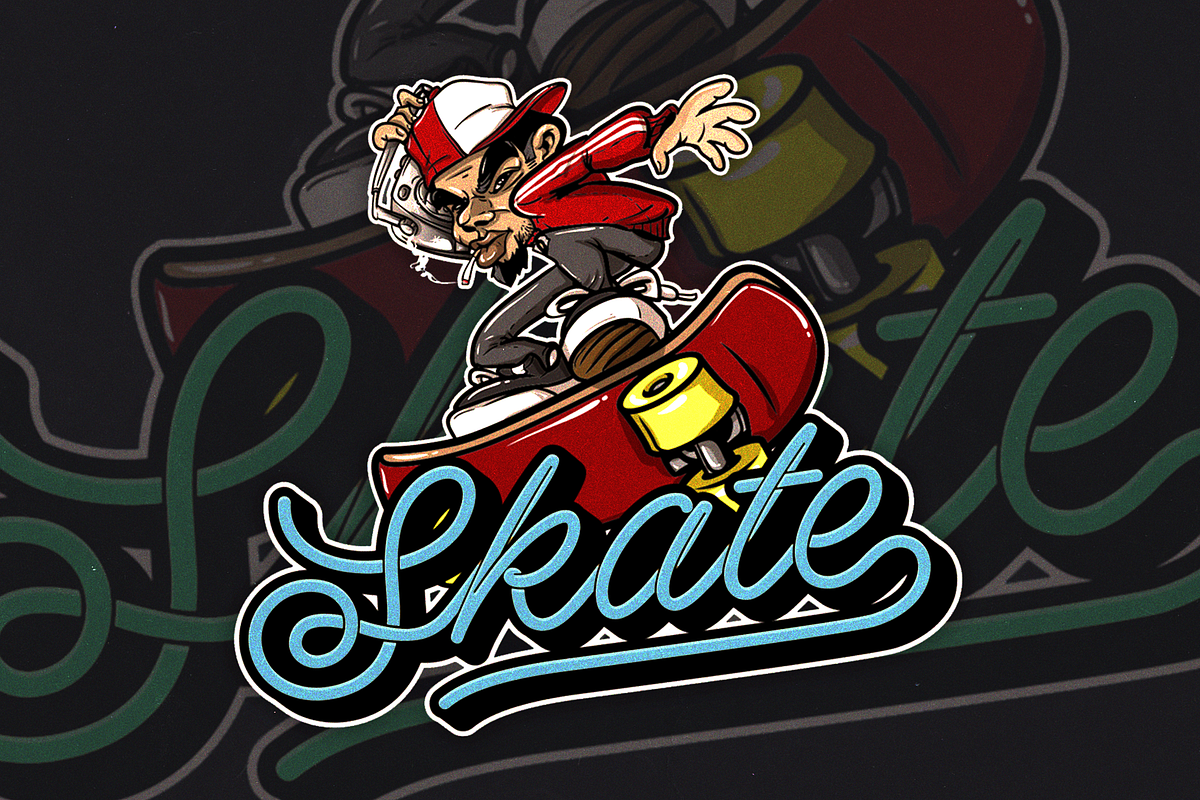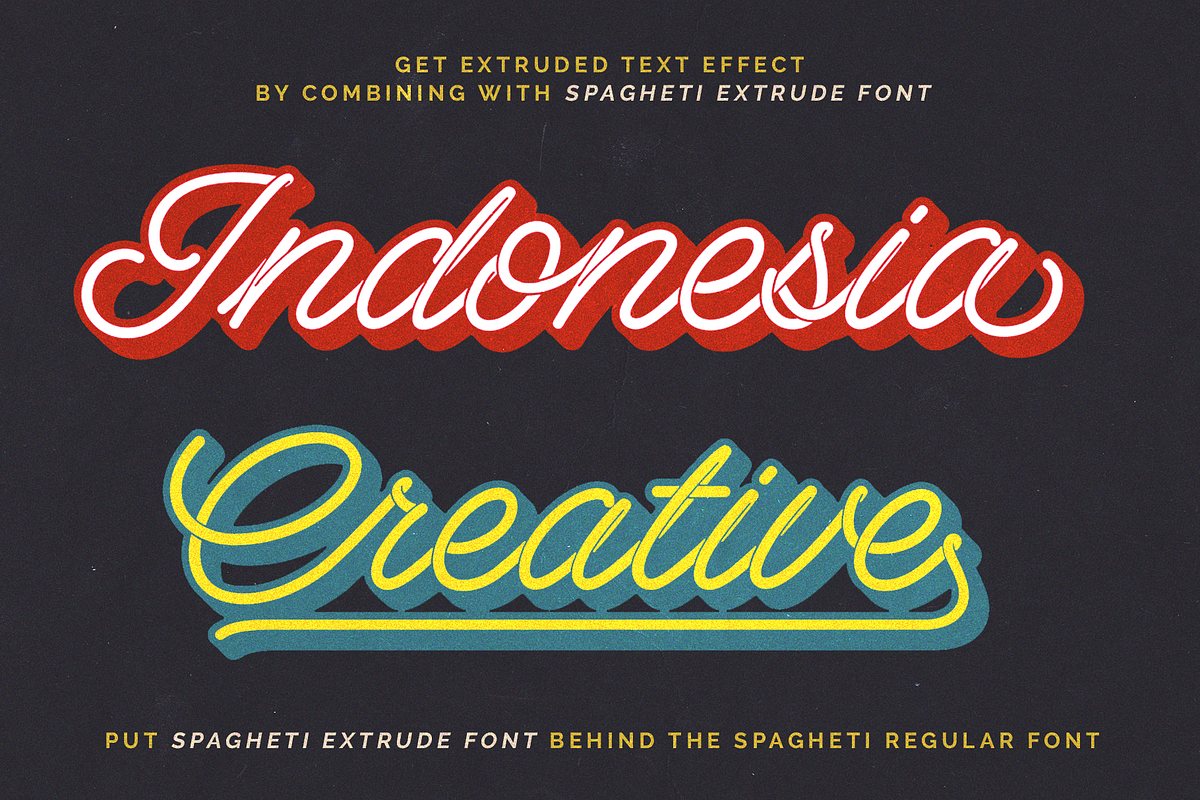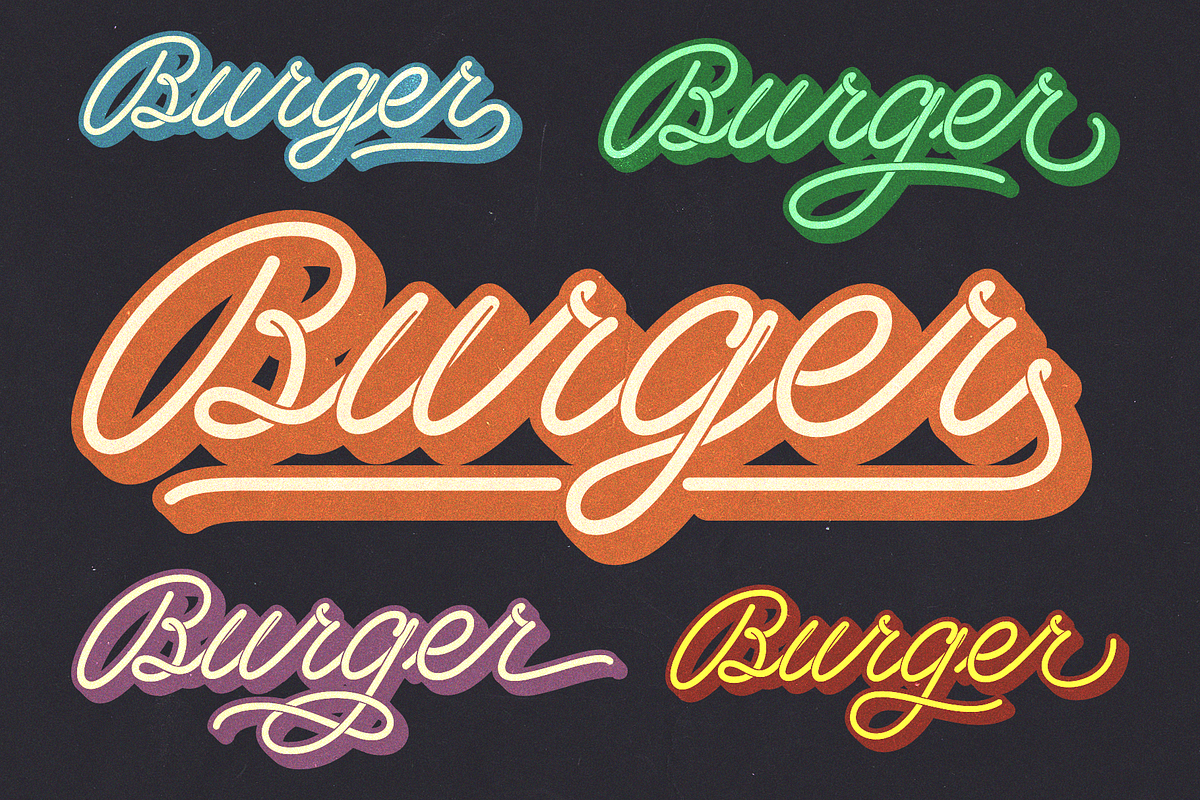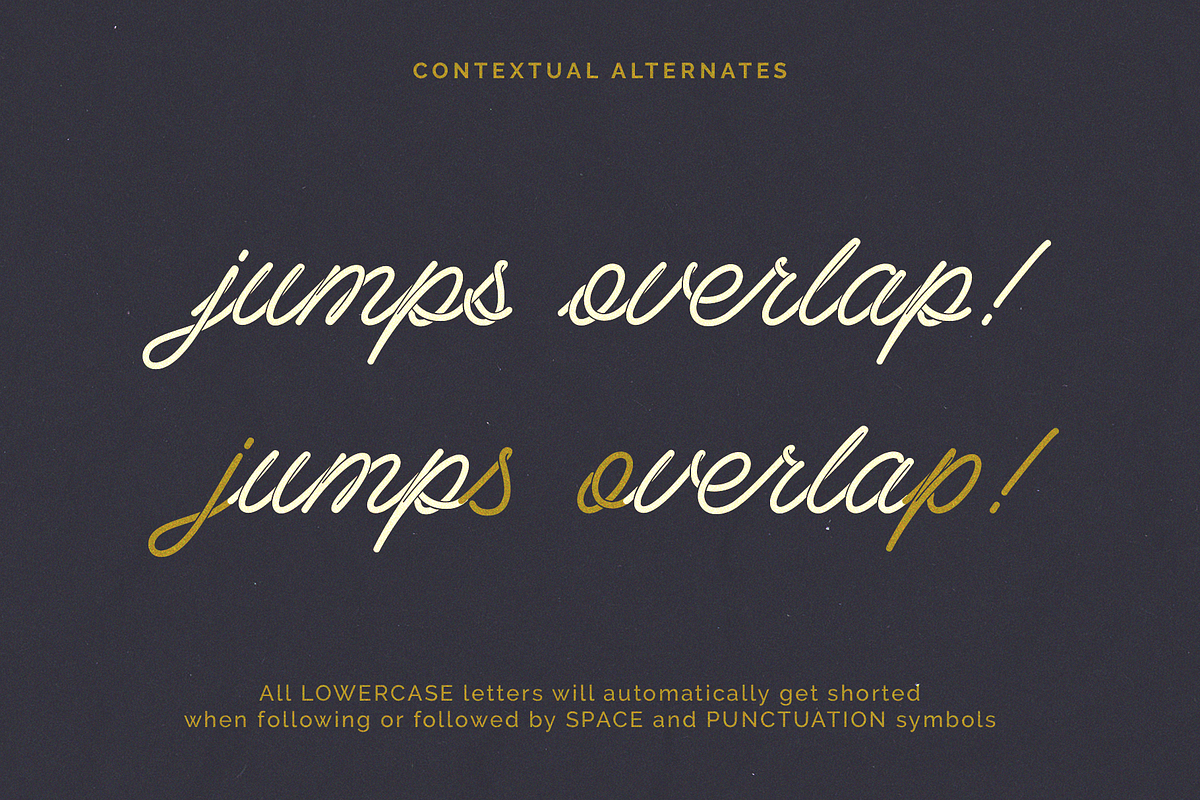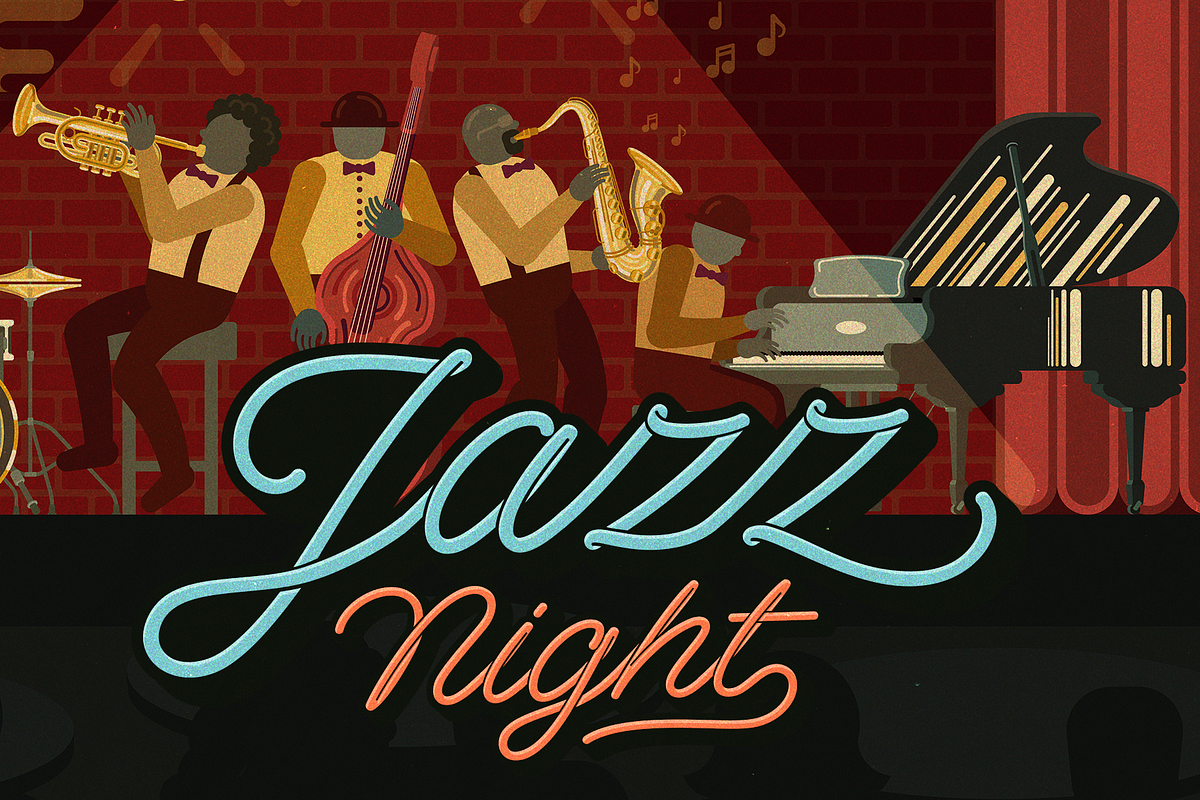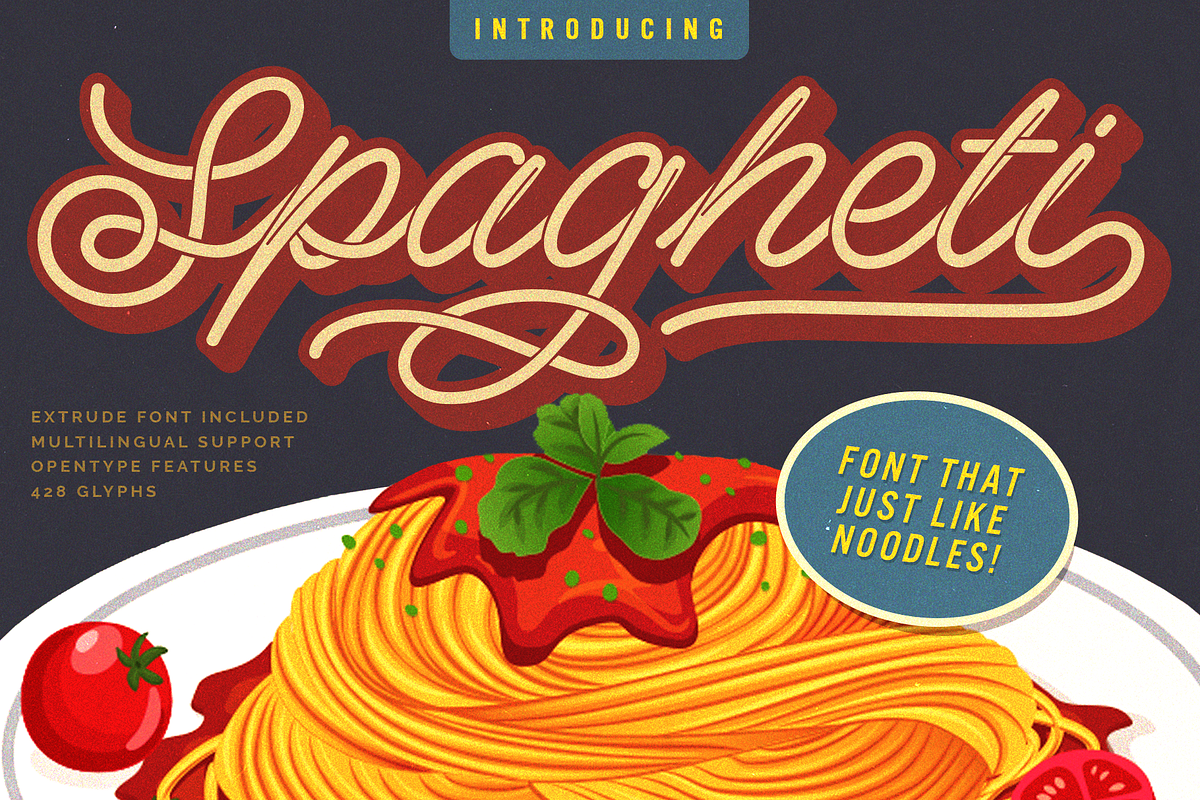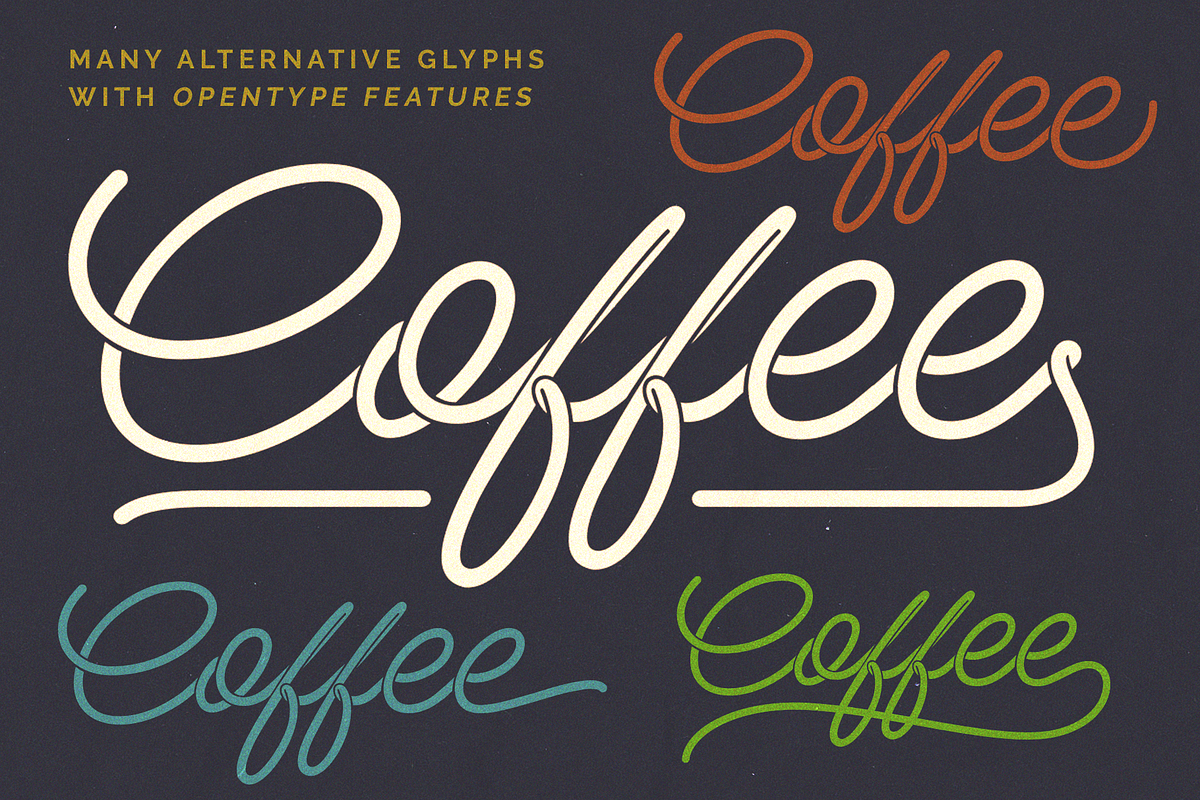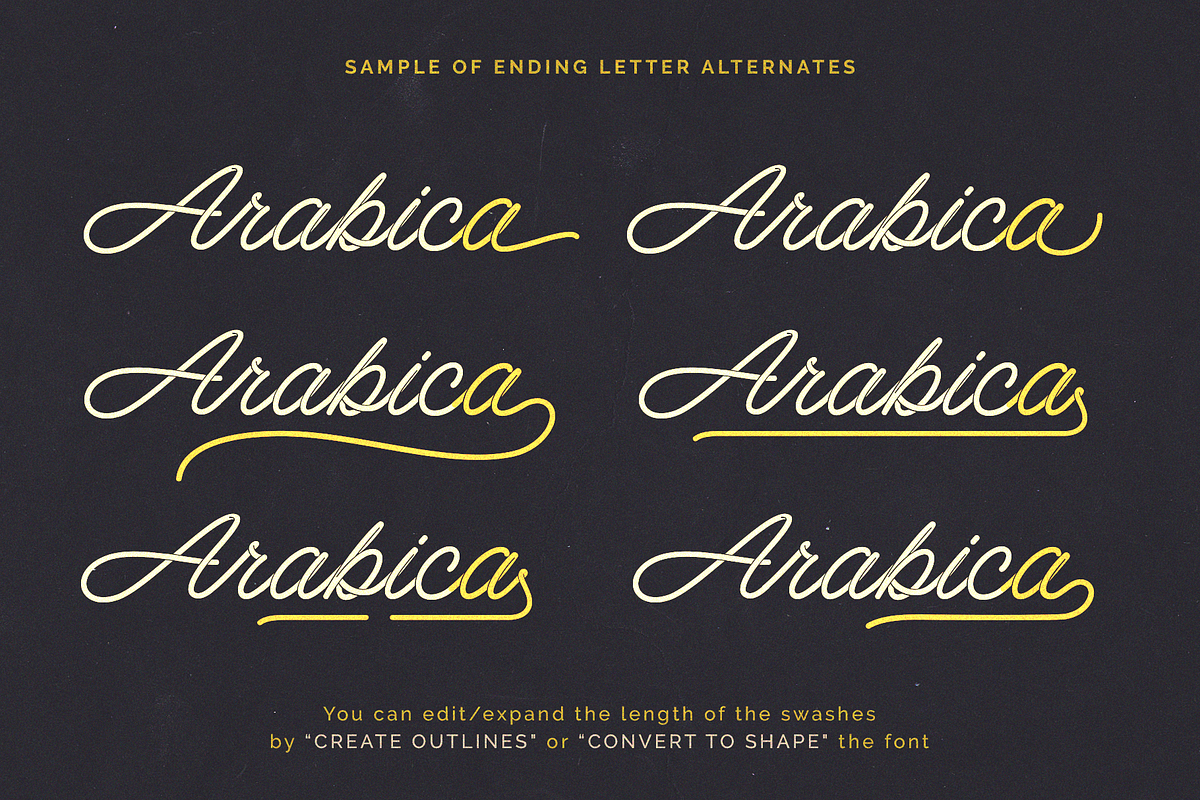
Spagheti Script - Stenciled Font
For many years i've been created so many monolined lettering that just looks like this font; Connected like noodles or a rope, from start to end perfectly.
The stenciled or the cut-off shapes from this lovely curve font not only will make your typography looks like a noodles formed into a flow connected letters, but also will make your type designs like it is made from a custom hand lettering. And if you pairing the regular font with the Extruded Font , you can create 3D extruded text effect so easy! So many thanks to the OpenType Technology for making this font development a lot more easier with its features such as Ligatures and Contextual Alternates. .
Spagheti Script - Stenciled Font by Hendra Pratama fits naturally into Branding, posters, packaging, typography.